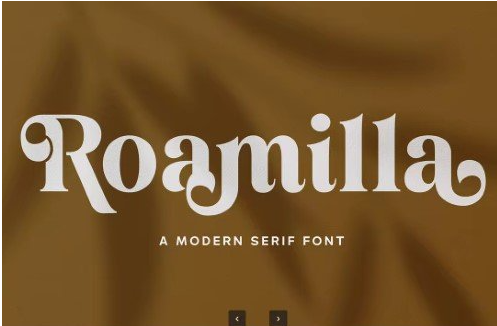
Roamilla – Modern Serif Font
Roamilla Modern Serif Font
Roamilla is a serif font designed to bring a sense of warmth, nostalgia, and charm to any creative project. Its bold and organic letterforms reflect a timeless style that blends playful energy with vintage sophistication. The unique curves and details make it a versatile choice for both modern and classic design needs. Perfectly suited for seasonal themes such as summer, spring, autumn, Thanksgiving, and Christmas, Roamilla enhances projects with a cozy and inviting atmosphere. Its lively essence captures the joy of celebrations, making it an excellent choice for invitations, posters, social media graphics, and festive crafts.